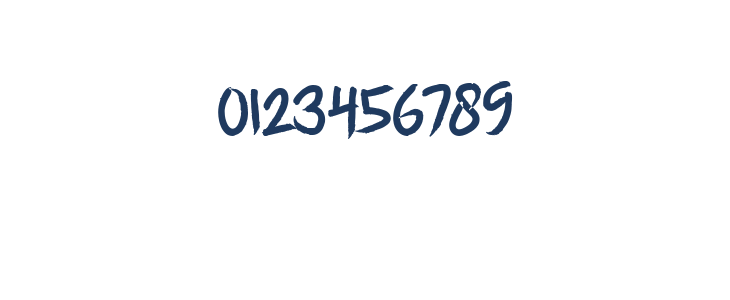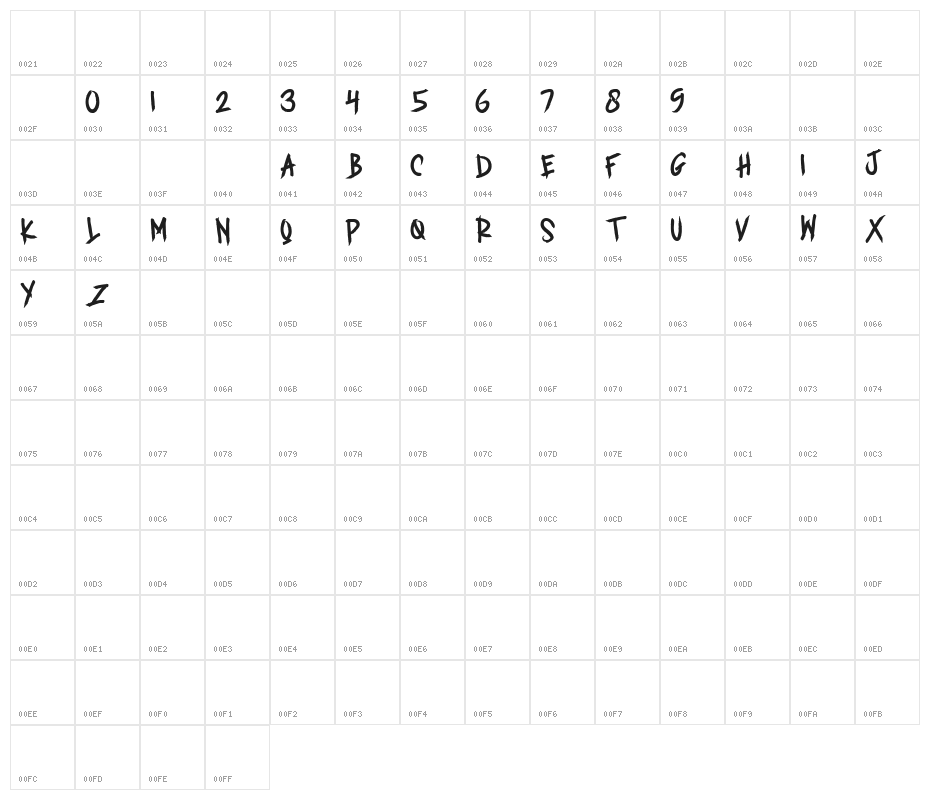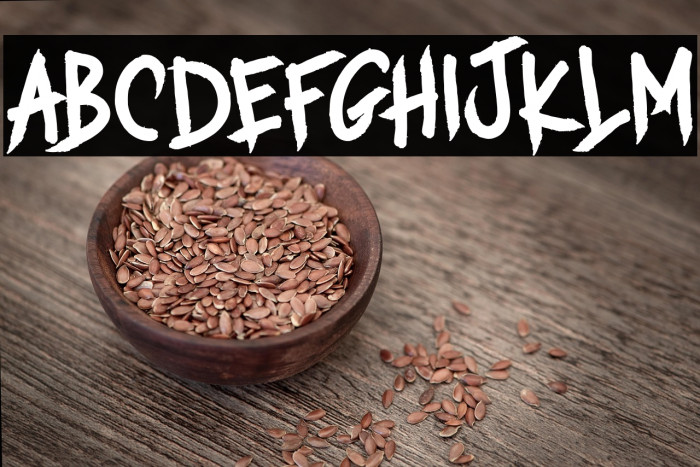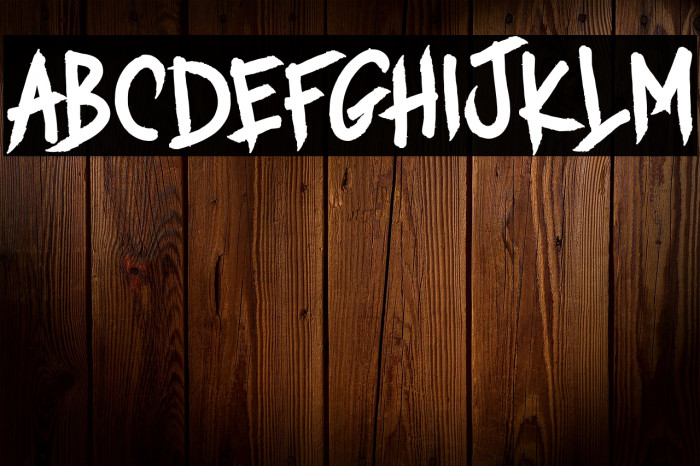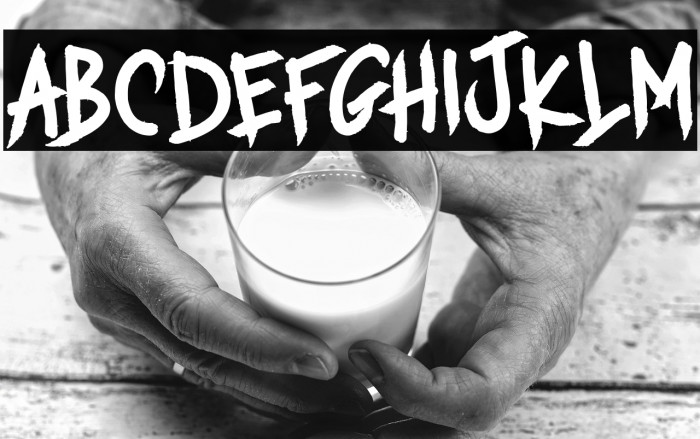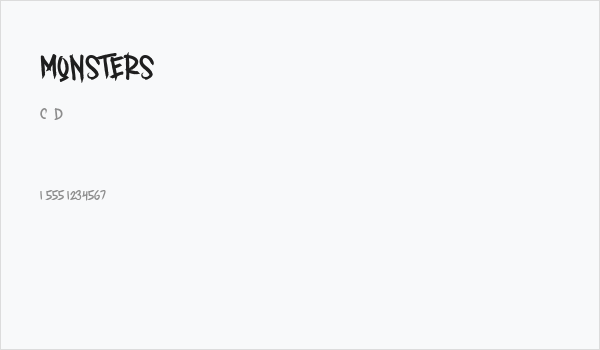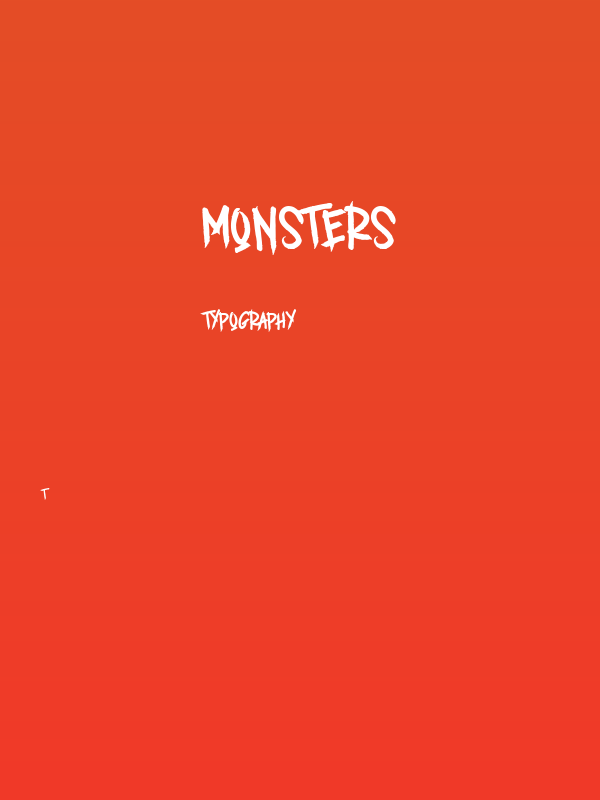
MONSTERS Font
MONSTERS Description
This font features a bold and dynamic style with a hand-drawn appearance. The letters are characterized by sharp, jagged edges and an irregular baseline, giving it an energetic and slightly chaotic feel. The strokes are thick and uneven, adding to the font's rugged and edgy aesthetic. It captures a sense of movement and intensity, making it ideal for attention-grabbing designs. The numbers follow the same style, maintaining consistency throughout the character set. This font is perfect for projects that require a bold and impactful visual presence.
| Proposed Projects | Ideal for horror-themed posters, Halloween invitations, edgy branding, and video game titles. |